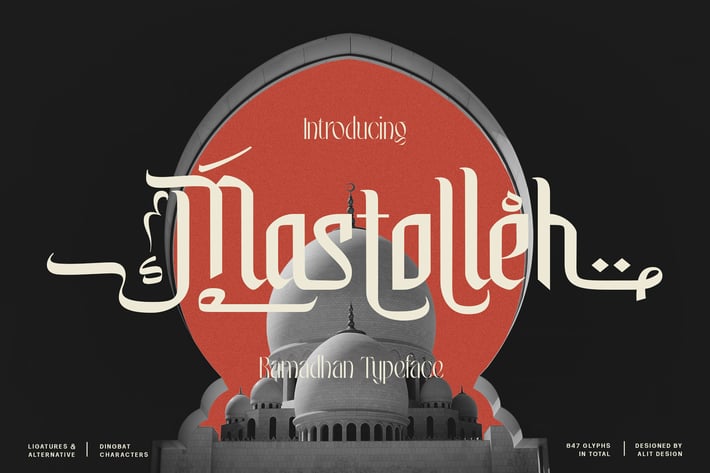
Mastolleh Ramadan Typeface
Presenting 🕌Mastolleh Ramadan Typeface🕌 by alitdesign.
"Mastolleh" is an Arabic font with a blackletter style and beautiful swashes. It is a highly versatile font that can be used for a variety of design projects. This font is designed specifically for users who require a font that can handle various writing systems and special characters. It comes with support for multiple languages.
Mastolleh font includes PUA (Private Use Area) Unicode, making it compatible with various software and applications that support OpenType features. It also features 847 glyphs, including uppercase and lowercase letters, numerals, and punctuation marks.
Overall, Mastolleh is unique style, multilingual support, PUA Unicode, extensive glyph set, and beautiful swashes make them a great choice for designers and users who need a font that is both beautiful and functional.